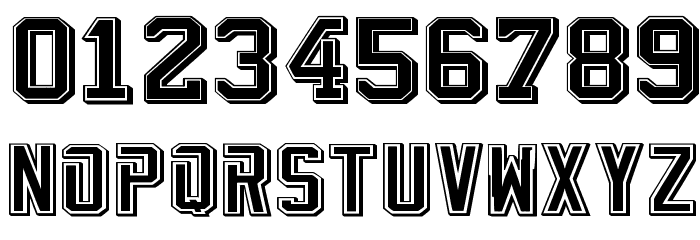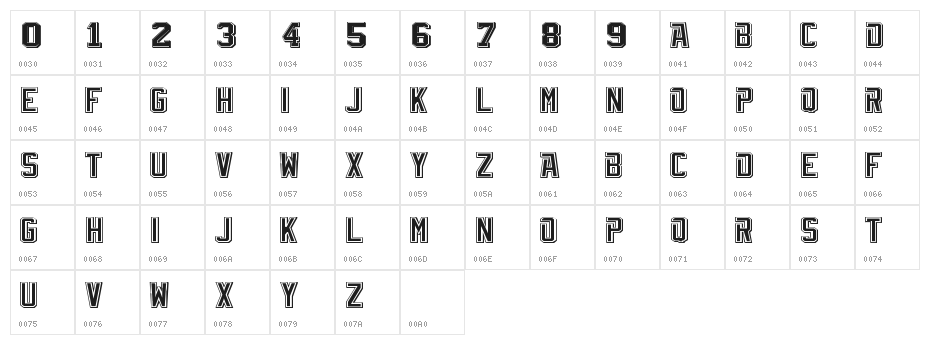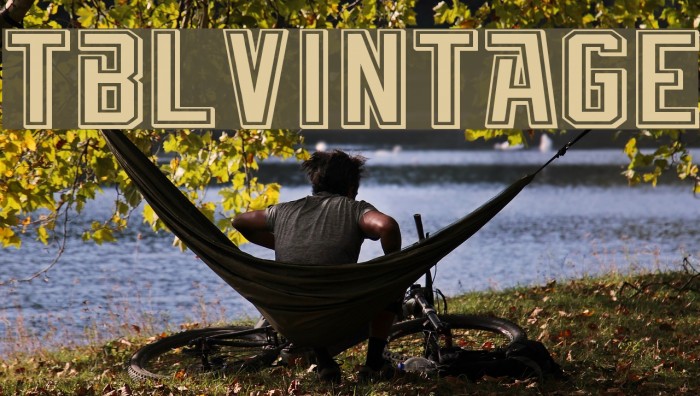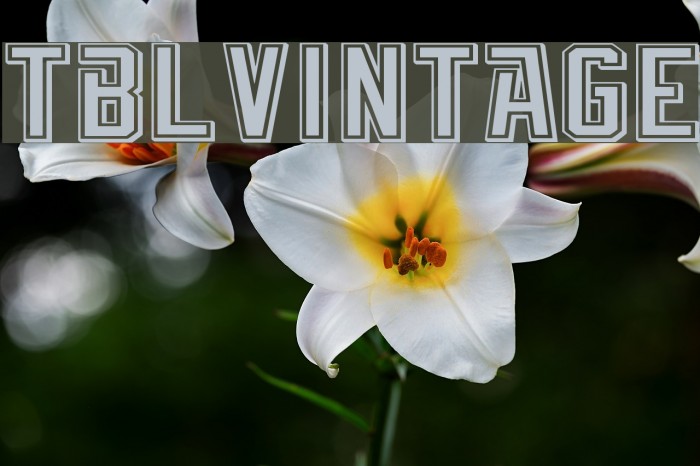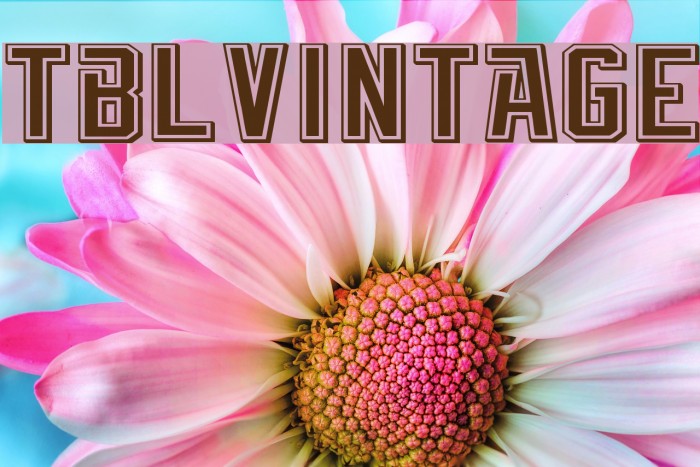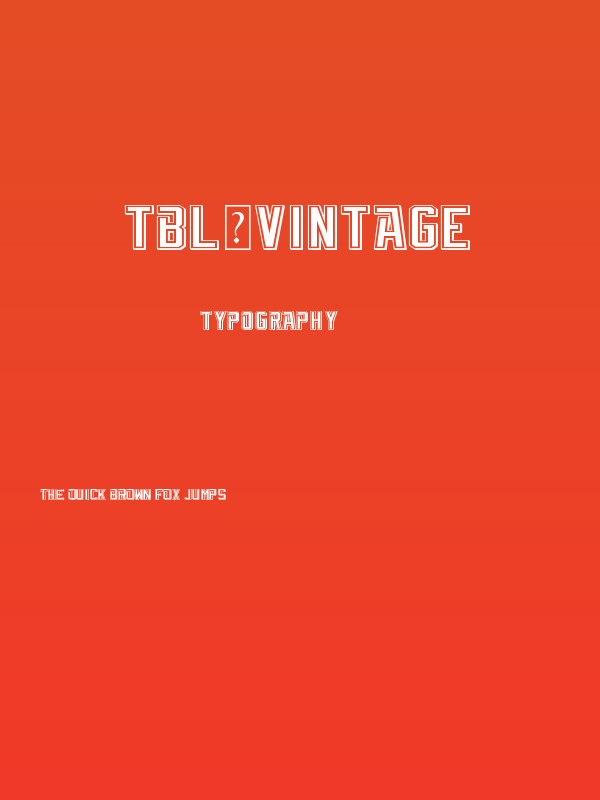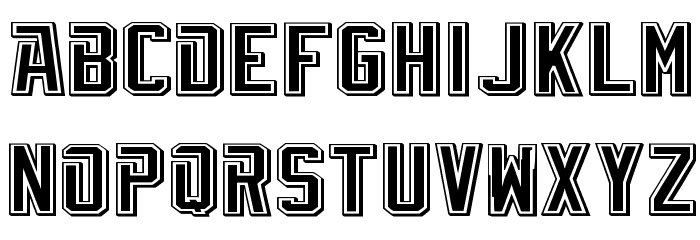
TBL_Vintage Font
This font features a bold, geometric design with a vintage flair. Each character is outlined with a thick border, creating a striking contrast between the inner and outer sections. The letters are uppercase and maintain a consistent height, giving a uniform appearance. The style is reminiscent of retro signage, with sharp angles and clean lines that evoke a sense of nostalgia. The numbers and special characters follow the same design principles, ensuring cohesion across all elements. This font is ideal for projects that require a bold statement and a touch of vintage charm.
Overall StyleVintage
Use CaseHeadlines, Logos, Signage
Proposed ProjectsIdeal for retro-themed posters, vintage branding, signage, and logo design.